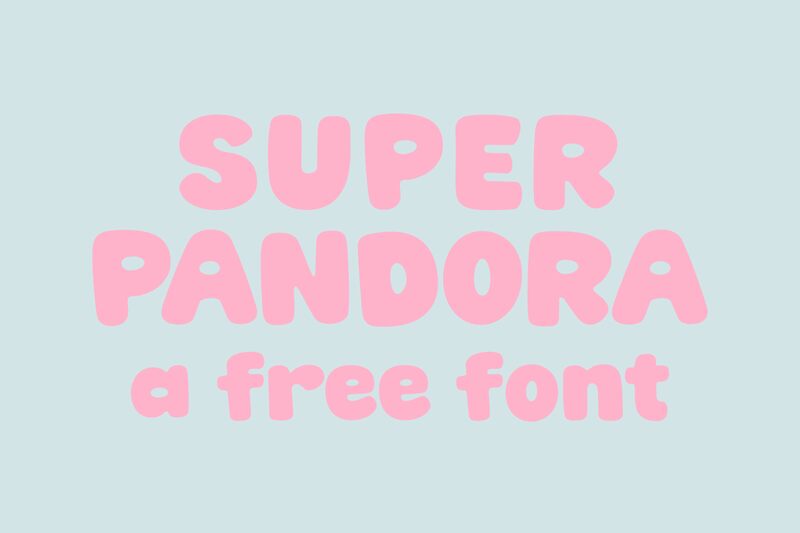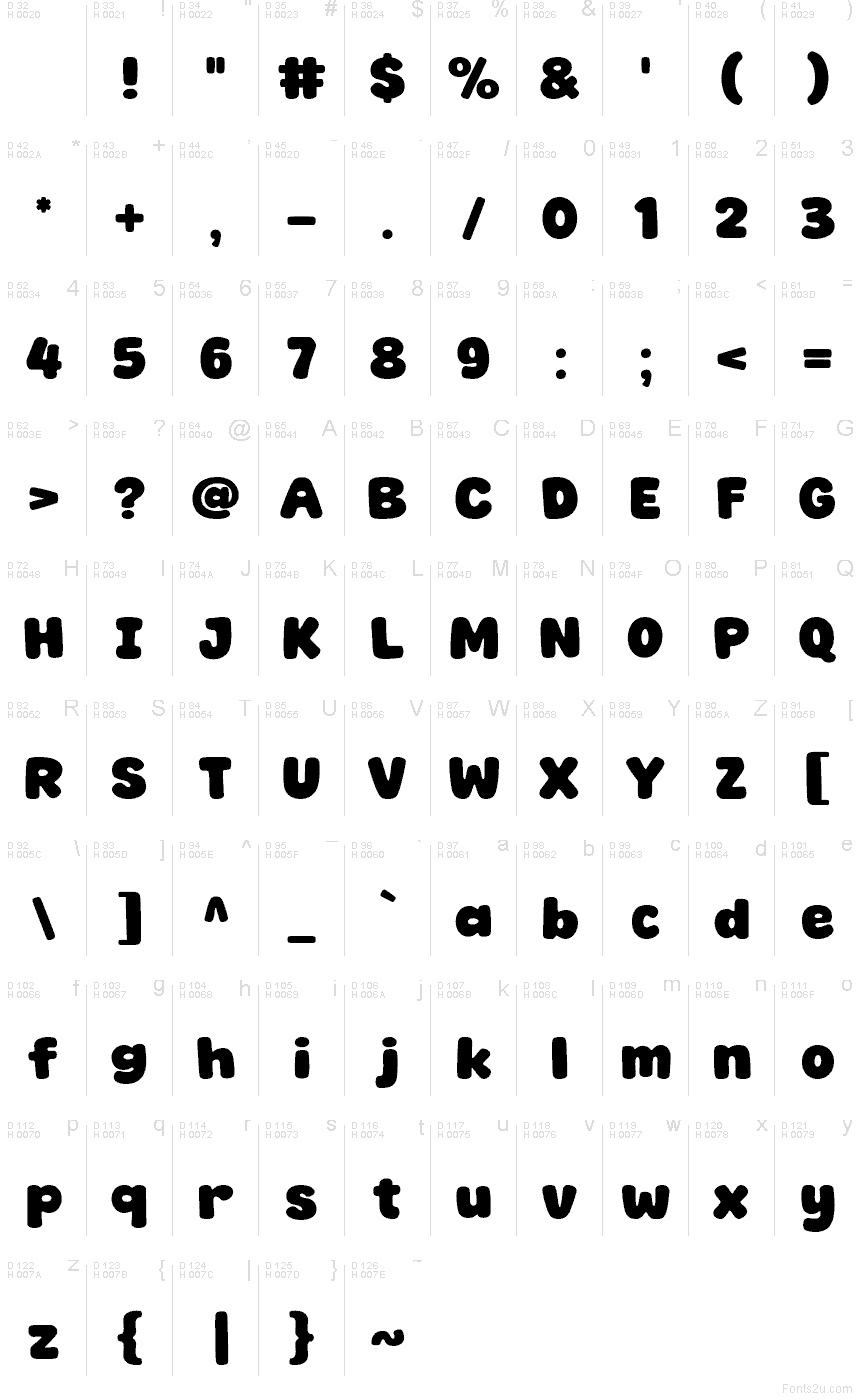
Super Pandora is a free bubbly cartoon display font with a soft, puffy look and a friendly 1970s-pop feel. The letters are squat and swollen, with thick rounded forms and deep curves that make the whole font feel plush rather than sharp.
It fits branding for kids' products, snack packaging, cheerful poster work, playful app headers, and YouTube title cards where short words need a big, cushioned silhouette. As a free font, it also works well for party invites and bold cover lines, especially when you want lowercase-heavy lettering that feels goofy, warm, and easygoing.